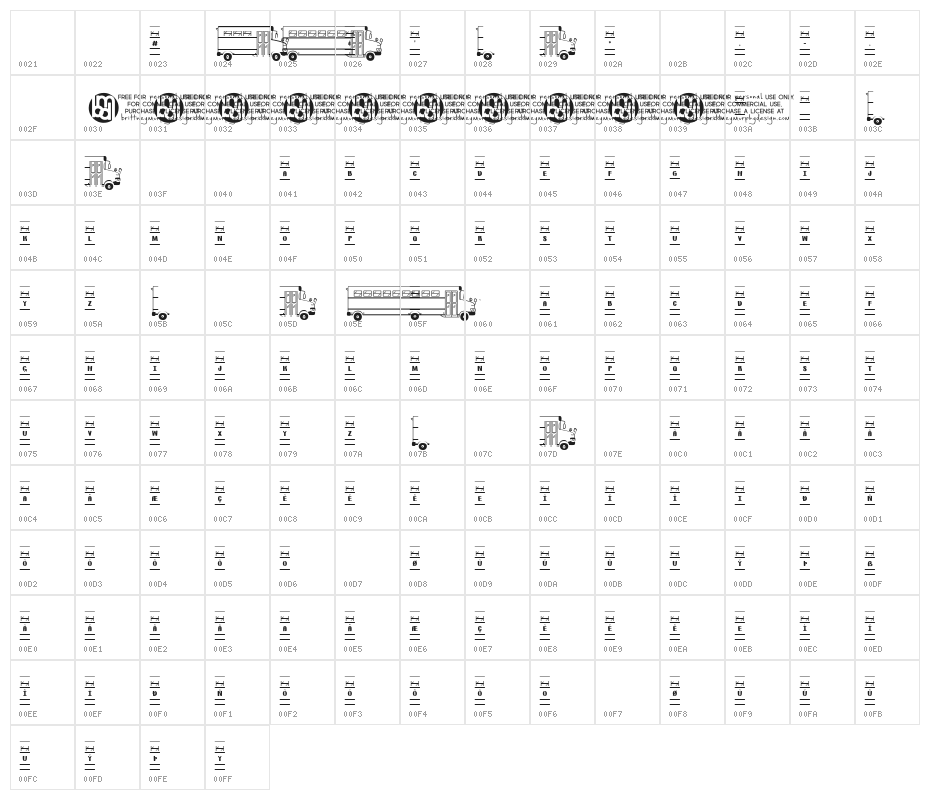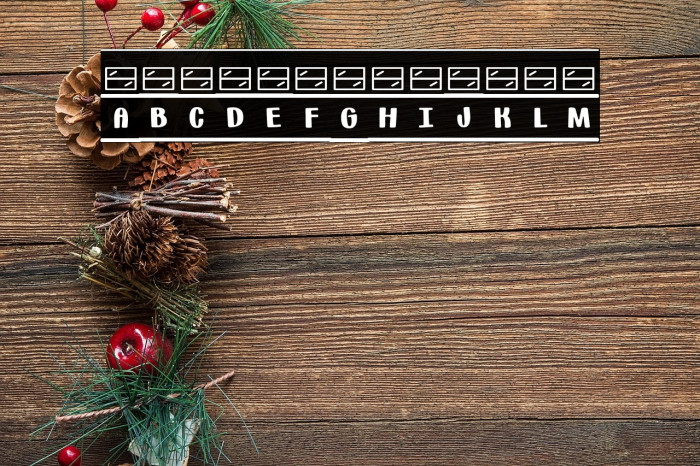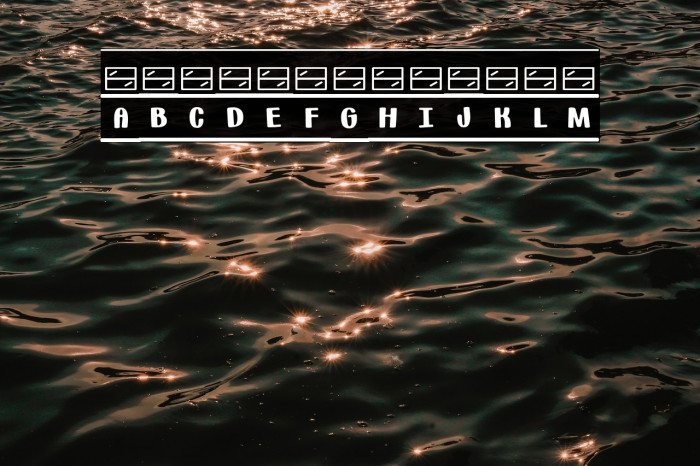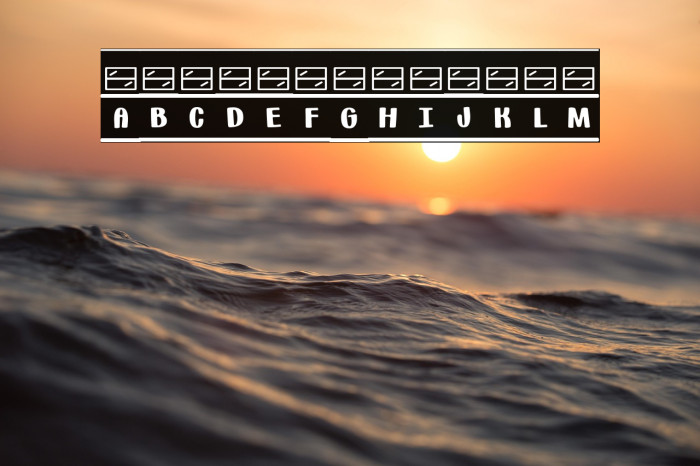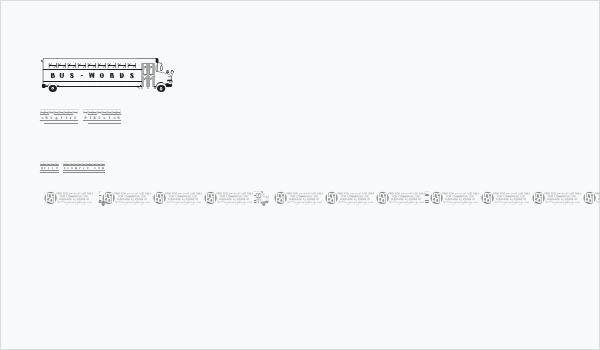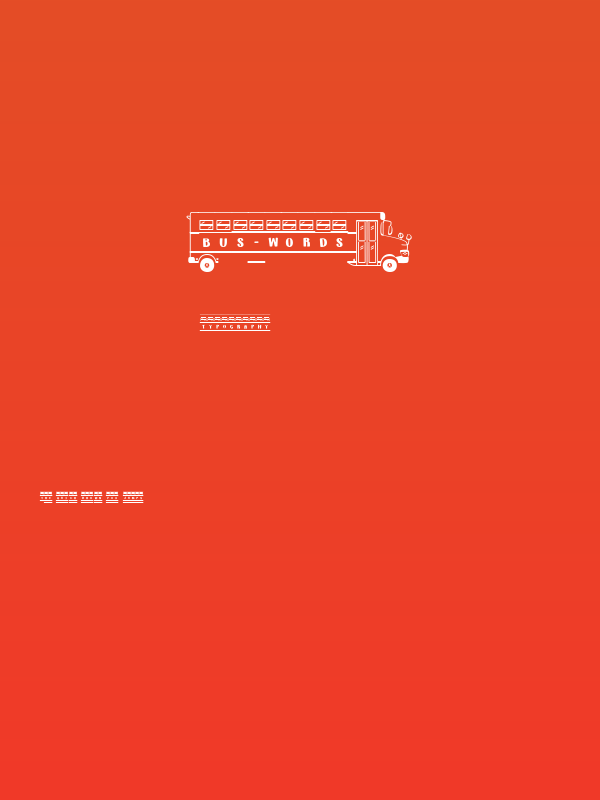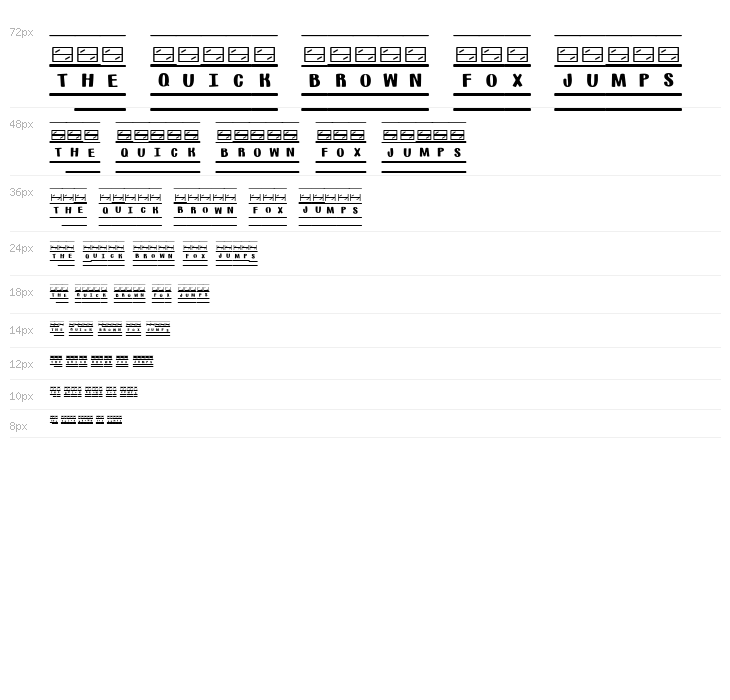
(Bus-words) Font
(Bus-words) Description
This playful and whimsical font features characters designed to resemble school buses, with each letter and number incorporating elements like windows and wheels. The uppercase letters are bold and distinct, with a uniform height that creates a cohesive look. The font's unique style is both decorative and thematic, making it ideal for projects related to education, transportation, or children's events. The characters are evenly spaced, ensuring readability while maintaining the fun, illustrative design. The font's charm lies in its ability to convey a sense of movement and playfulness, making it a standout choice for creative projects.
| Overall Style | Playful, Thematic, Decorative |
| Proposed Projects | Perfect for school event posters, children's book covers, educational materials, and playful branding. |